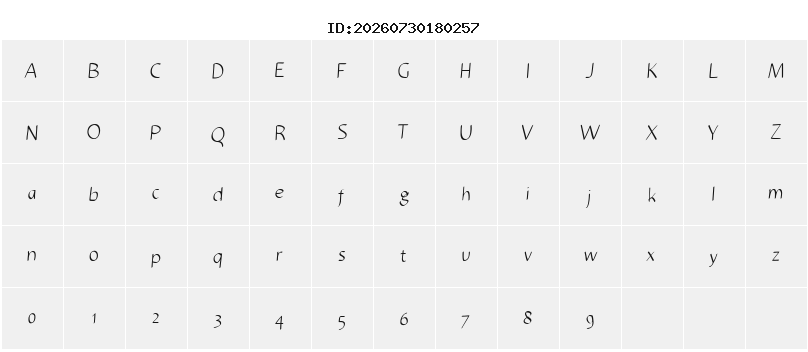
Luis Candara Preview
• Font Name: Luis Candara
• Font Style: regular
• Full Font Name: Luis Candara
• PostScript Name: LuisCandara
• Designer: Luis Galv?n
• Manufacturer: Luis Galv?n
About Luis Candara.ttf
Luis Candara.ttf is a modern, elegant sans-serif font designed for ultimate readability and visual harmony. Perfect for branding, headlines, web design, and print materials.